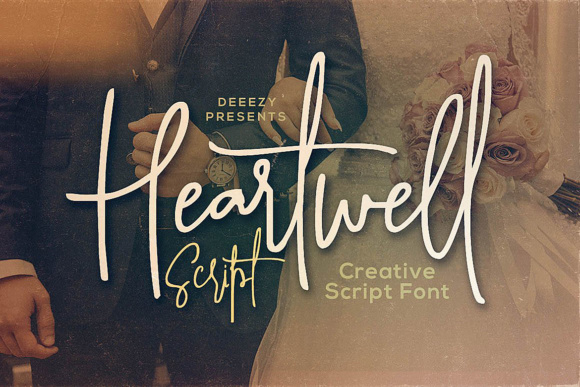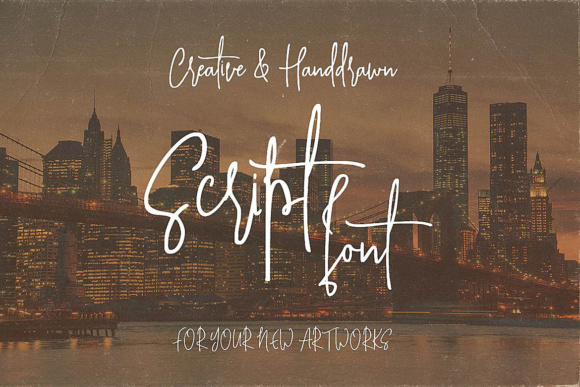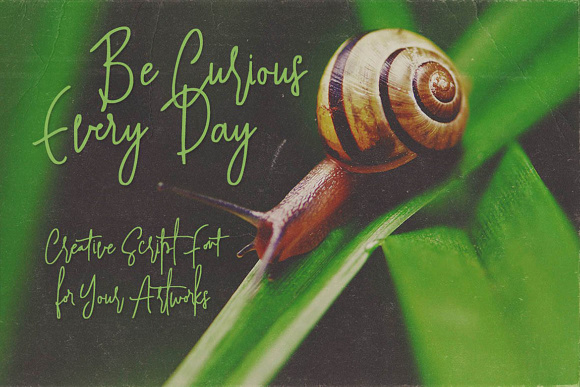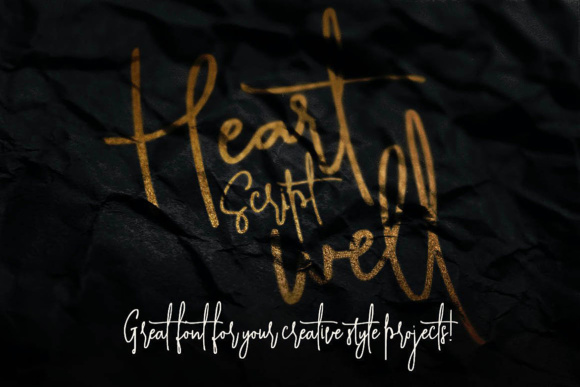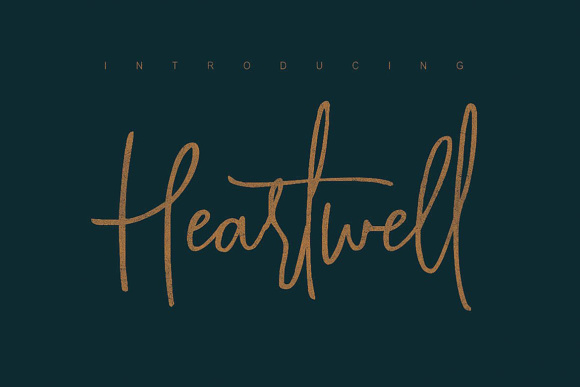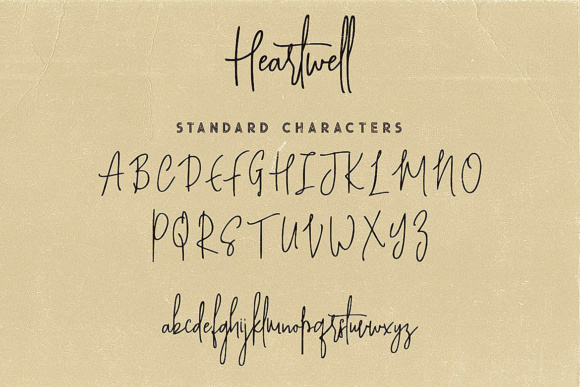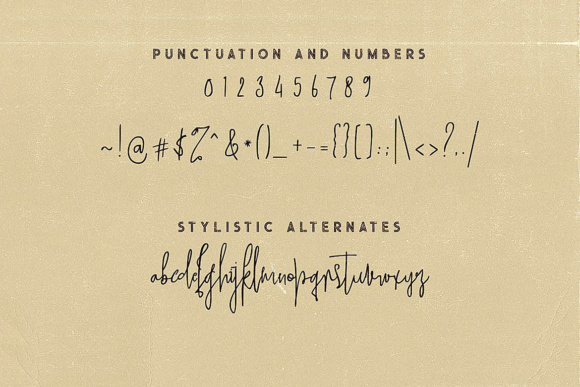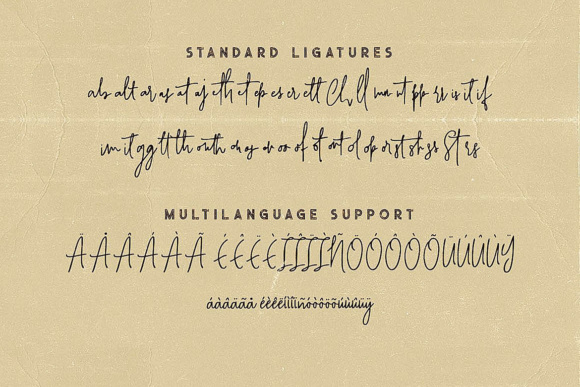
HomeScript FontsHeartwell Script Font Script Fonts Heartwell Script Font FacebookXPinterestWhatsApp Heartwell Script Font Poster 2 Heartwell Script Font Poster 3 Heartwell Script Font Poster 4 Heartwell Script Font Poster 5 Heartwell Script Font Poster 6 Heartwell Script Font Poster 7 Heartwell Script Font Poster 8 About Heartwell Script Font The Heartwell has a crazy dancing baseline and a handwritten style for all your new projects. DOWNLOAD NOW People also explored Eisha Script Becora Font Boilermaker Happy Kids Font Poems & Pens Font Agreeable Font Movelyone Font Wyattruly Font Petit Nuage Font 328 0 TagsHeartwell Script Font Previous articleBasston Script FontNext articleZarinah Font LEAVE A REPLY Cancel reply Comment: Please enter your comment! Name:* Please enter your name here Email:* You have entered an incorrect email address! Please enter your email address here Website: Save my name, email, and website in this browser for the next time I comment. Personal Use Free Kellana Personal Use Free Read more about this font Sushi Day Personal Use Free Read more about this font Ailand Personal Use Free Read more about this font Makeba Font Personal Use Free Read more about this font BLOG Free vs Paid Fonts: Why Investing in Premium Fonts Is Worth It Free vs Paid Fonts: Why Premium Fonts Are Worth It in 2025 The debate of free vs paid fonts continues in the design world. While... Best Fonts for YouTube Videos: Make Your Thumbnails Stand Out Using Fonts in Digital Marketing: Tips to Strengthen Your Brand Identity Top 10 Handwritten Fonts That Elevate Your Designs